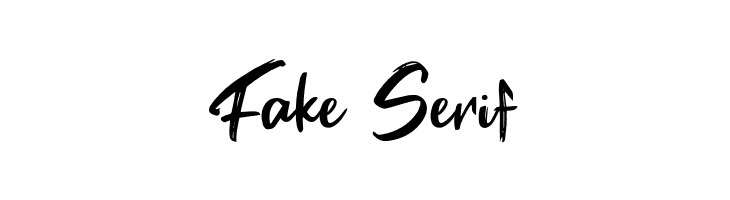
( FlipDarius - Felipe Dário - felipedario.com/ )
A bold, graffiti-inspired font with a rugged, brush-like texture.
( FlipDarius - Felipe Dário - felipedario.com/ )
A bold, textured font with a rugged, hand-crafted appearance.
( FlipDarius - Felipe Dário - felipedario.com/ )
A dynamic, brush-style font with fluid, hand-drawn characteristics.
( FlipDarius - Felipe Dário - felipedario.com/ )
An artistic and illustrative font with characters embedded in folk art scenes.
( Fonts by Marcio Hirosse /// Fabrika De Typos )
A decorative and whimsical font with intricate details and a vintage flair.
( Fonts by Font Environment - fontenvironment.com )
A bold, distressed font with a grunge aesthetic and textured appearance.
( Fonts by Font Environment - fontenvironment.com )
Cartoonish ghost-themed decorative font with expressive faces.
( Fonts by Font Environment - fontenvironment.com )
Abstract, geometric face illustrations form each character.
( Fonts by Font Environment - fontenvironment.com )
A playful, hand-drawn font with circular decorative elements.
( Fonts by Font Environment - fontenvironment.com )
A bold, modern font with characters encased in black boxes for high contrast.
( Fonts by Font Environment - fontenvironment.com )
A bold, boxy font with geometric, rectangular frames around each character.
( Fonts by Font Environment - fontenvironment.com )
A bold, boxy font with characters formed by negative space within rectangles.
( Fonts by Font Environment - fontenvironment.com )
A decorative font made of interconnected cubes, offering a 3D geometric style.
( Fonts by Font Environment - fontenvironment.com )
A whimsical, decorative font with circular encased letters and vine-like details.
( Fonts by Font Environment - fontenvironment.com )
A decorative, playful font with a Latin American comic book style.
( Fonts by Font Environment - fontenvironment.com )
A bold, energetic comic book style font with exaggerated, playful characters.
( Fonts by Font Environment - fontenvironment.com )
Outlined comic speech and thought balloon glyphs.
( Fonts by Font Environment - fontenvironment.com )
Playful, confetti-inspired decorative font with varied geometric shapes.
( Fonts by Font Environment - fontenvironment.com )
Bold sans-serif font mimicking domino tiles with integrated dot motifs.
( Fonts by Font Environment - fontenvironment.com )
A whimsical set of cartoonish car illustrations with a playful, hand-drawn style.
( Fonts by Font Environment - fontenvironment.com )
A bold, fingerprint-themed font with a modern and artistic style.
( Fonts by Font Environment - fontenvironment.com )
A geometric, grid-based font with a digital, pixelated style.
( Fonts by Font Environment - fontenvironment.com )
A bold, chaotic font with a scribbled, decorative outline.
( Fonts by Font Environment - fontenvironment.com )
A mirror writing font with an artistic, vintage flair.
( Fonts by Font Environment - fontenvironment.com )
A playful decorative font featuring cartoon-like characters in various activities.